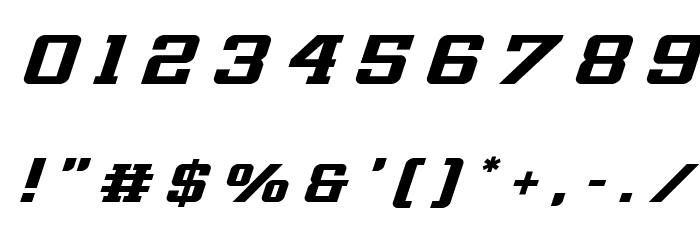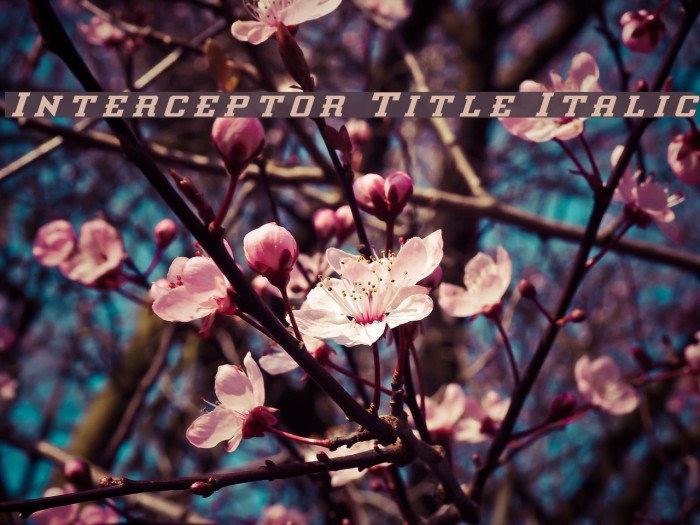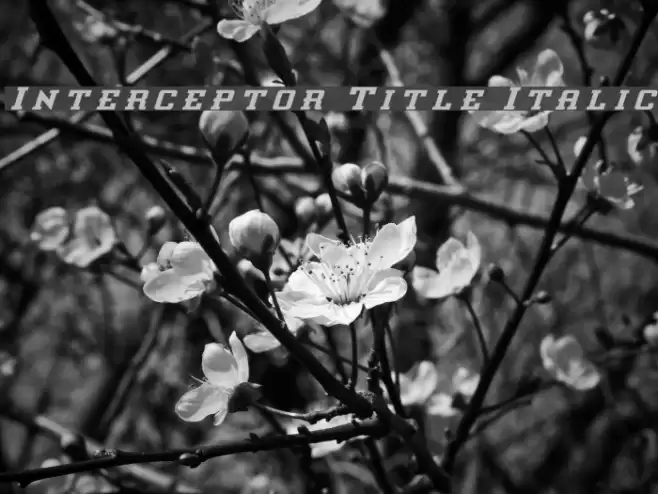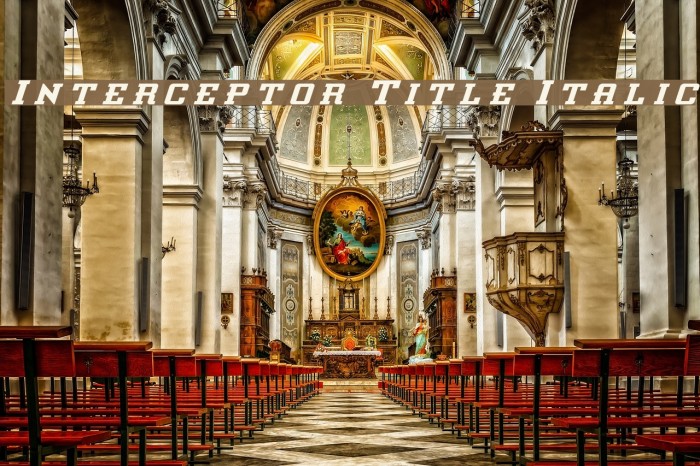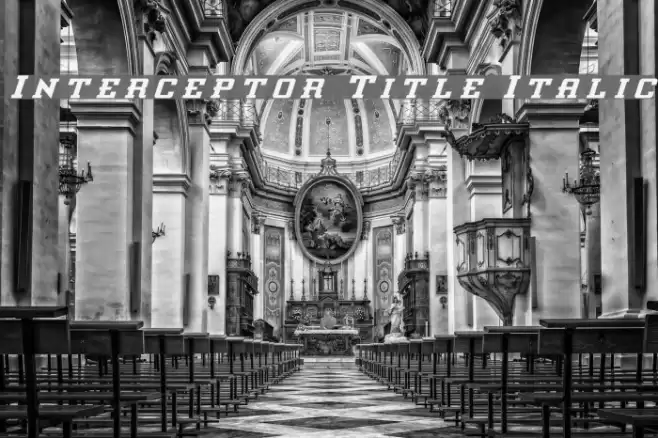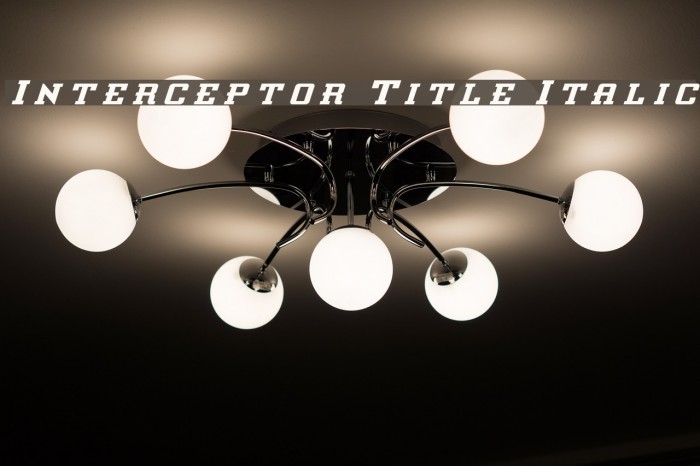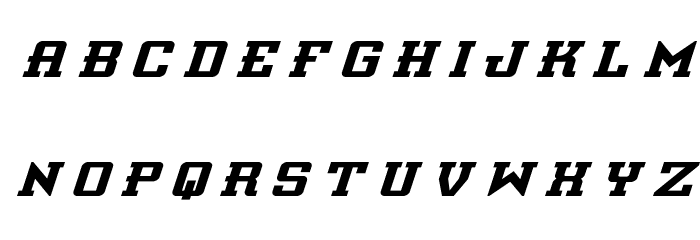
Interceptor Title Italic Font
Interceptor Title Italic Description
This font features a bold and dynamic style with a strong presence. The characters are designed with a slight slant, giving them an italicized appearance that adds a sense of motion and energy. The strokes are thick and consistent, providing a robust and impactful look. The serifs are prominent, enhancing the font's boldness and making it suitable for attention-grabbing headlines. The overall design is modern and assertive, with a touch of vintage flair due to its serif elements. The numbers and special characters maintain the same bold and italicized style, ensuring consistency across all elements.
| Proposed Projects | Ideal for sports branding, action movie posters, and dynamic advertising campaigns. |